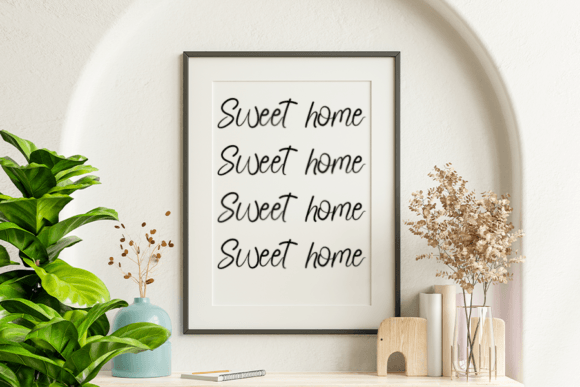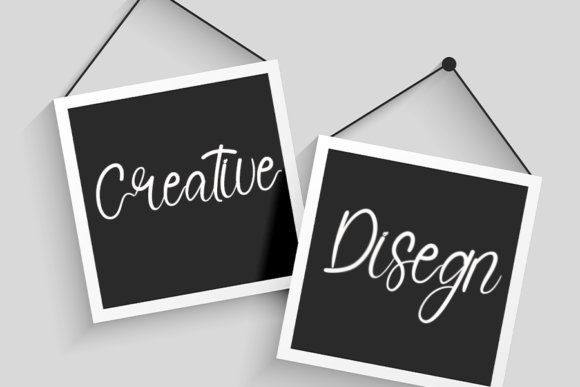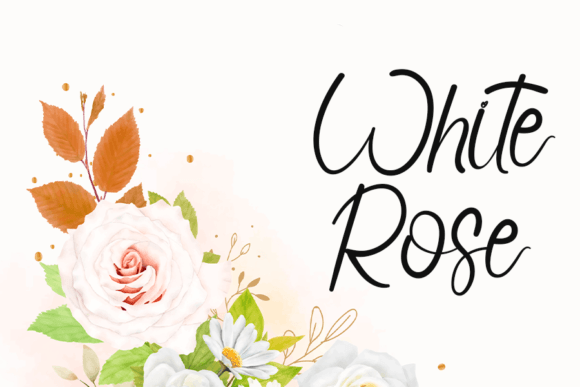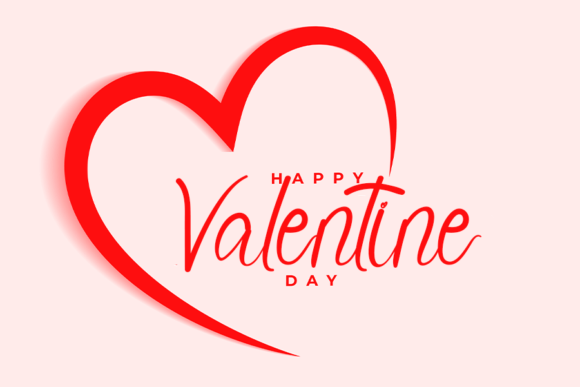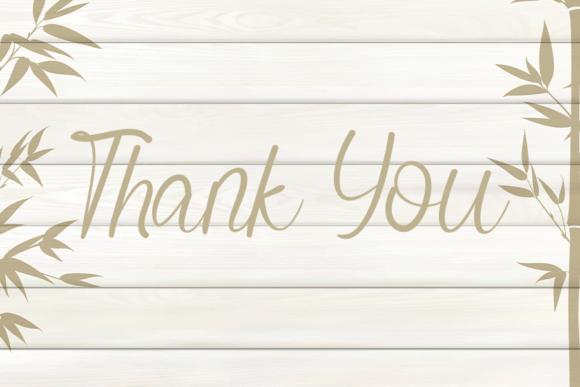
Welcome Font
About Welcome Font
Welcome font is a simple and friendly handwritten typeface designed to bring warmth and charm to your projects. Its approachable and natural style makes it an excellent choice for a wide range of creative uses. Whether you are crafting, working on digital designs, preparing presentations, or making greeting cards, Welcome font offers a versatile and inviting look that fits any occasion.
Downloading Welcome font gives you access to a font that is both easy to read and visually appealing. Its casual handwritten strokes add a personal touch without sacrificing professionalism. This font works perfectly when you want your design to feel approachable and genuine.
Versatile Applications for Your Projects
Welcome font suits many design needs, including:
• Craft projects that require a warm and simple style
• Digital designs that need a friendly and clean font
• Presentations that benefit from a clear yet personal touch
• Greeting cards with an inviting and heartfelt vibe
Its balanced letterforms ensure readability while maintaining a casual handwritten charm.
In summary, Welcomefont is an ideal choice if you want a simple, friendly, and handwritten style that adapts well to various creative projects. Download Welcomefont today and let your designs radiate warmth and friendliness.